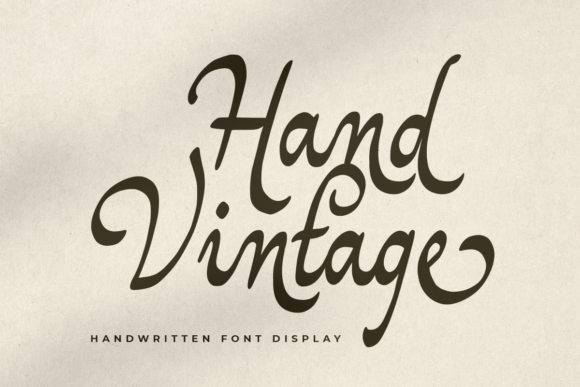
Unveil the Timeless Beauty of Hand Vintage Font: A Journey into the Realm of Classic Elegance
Journey back in time to an era of handwritten elegance with Hand Vintage Font, a captivating script font that evokes the charm of yesteryears. Hand Vintage Font is a carefully crafted masterpiece that captures the essence of nostalgia, reminiscent of love letters penned with fountain pens and ideas etched on paper.
With its flowing strokes and delicate curves, Hand Vintage Font adds a touch of sophistication to any design project. Whether you're creating wedding invitations, birthday cards, or vintage-inspired branding, this font will transport you and your audience to a world of timeless beauty.
Effortlessly express your creativity as you explore the endless possibilities of Hand Vintage Font. Its PUA encoding grants you access to a treasure cove of glyphs and ligatures, allowing you to add intricate details and flourishes to your designs. Unleash your imagination and let your words dance across the page with elegance and grace.
Embark on a creative adventure with Hand Vintage Font and discover the joy of creating designs that speak to the heart. Its versatility knows no bounds, making it an ideal choice for a myriad of projects, from heartfelt love letters to stunning social media posts.